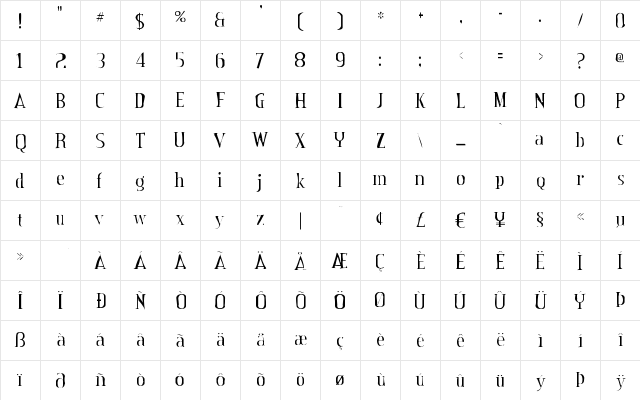
Credit Valley Gaunt Regular
Design Context for Credit Valley Gaunt Typeface
Credit Valley Gaunt is a composed and adaptable typeface that performs quietly and consistently across a wide range of design contexts.
Pro Tip: Use Credit Valley Gaunt in both headline and body roles to test its range before committing to a single application.